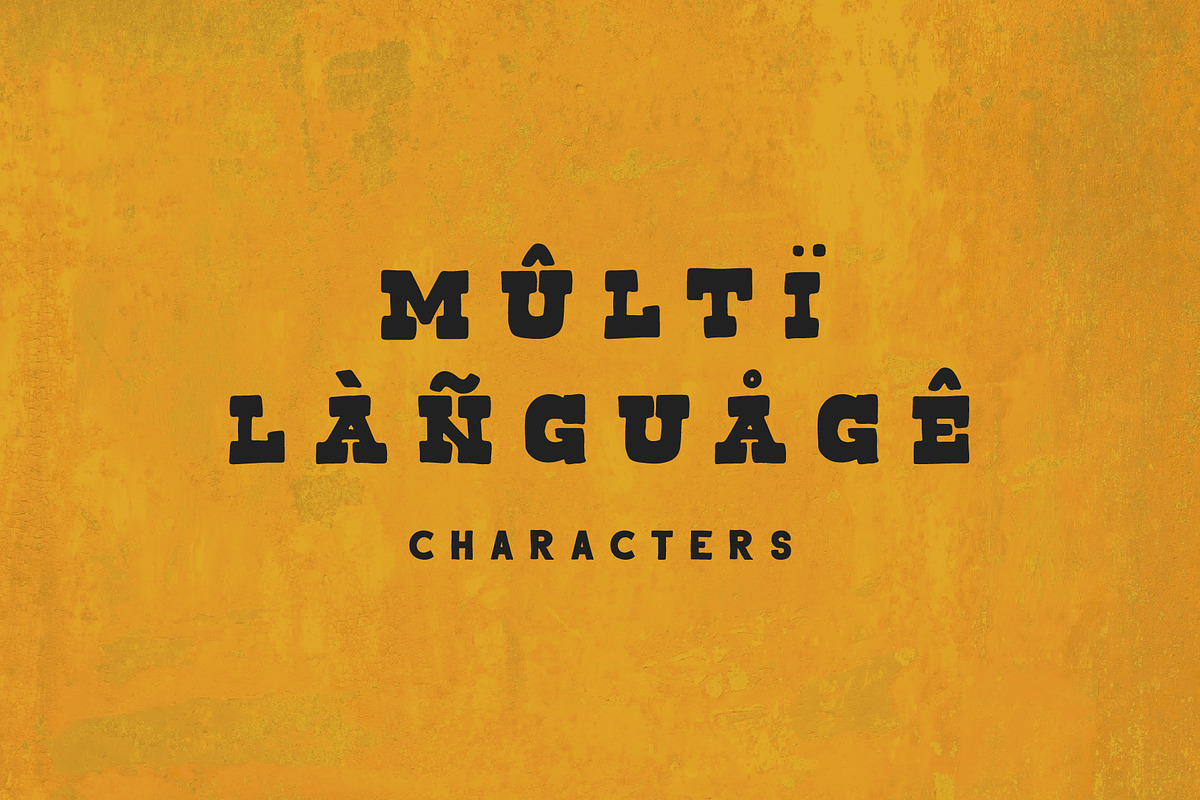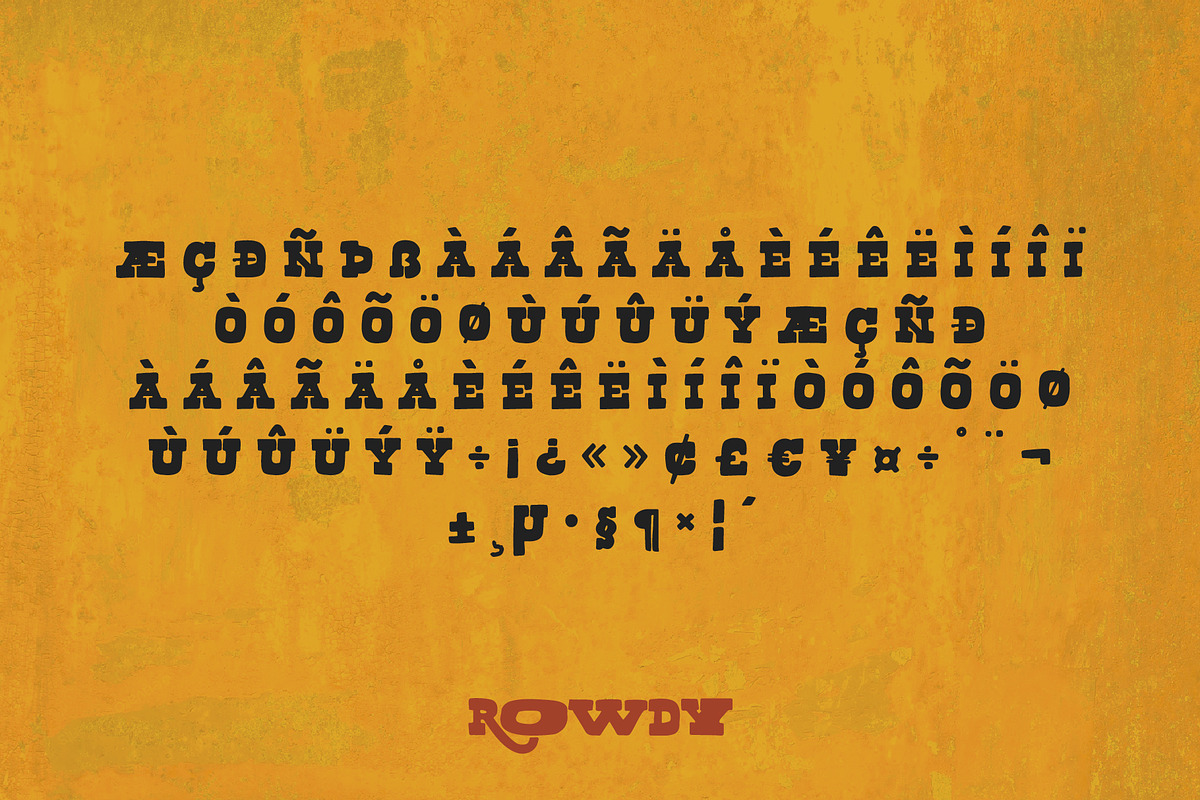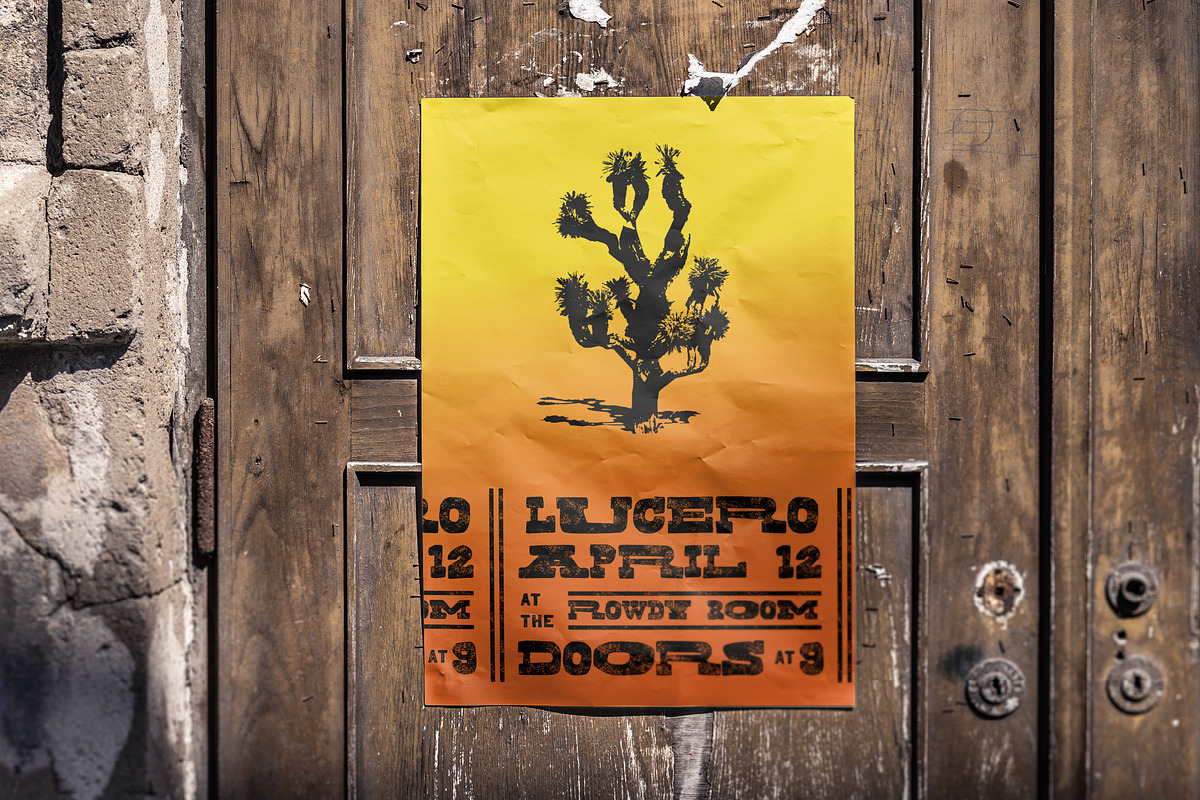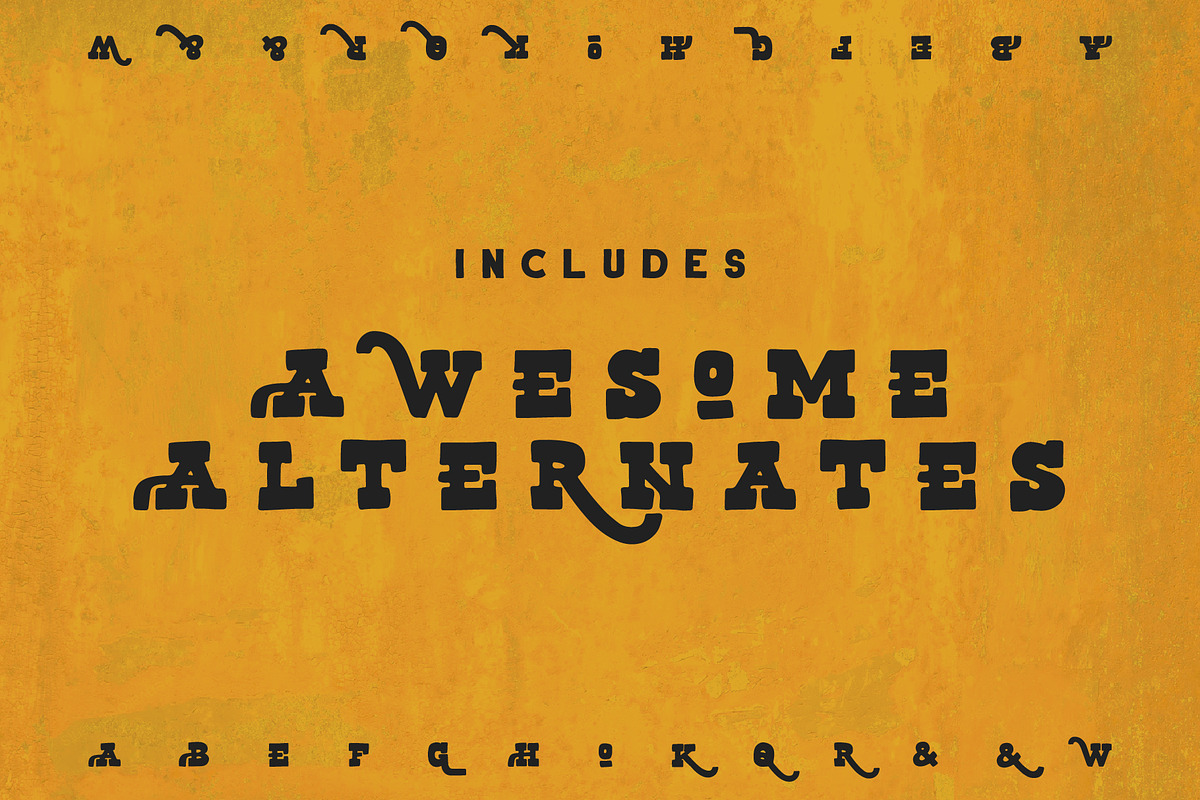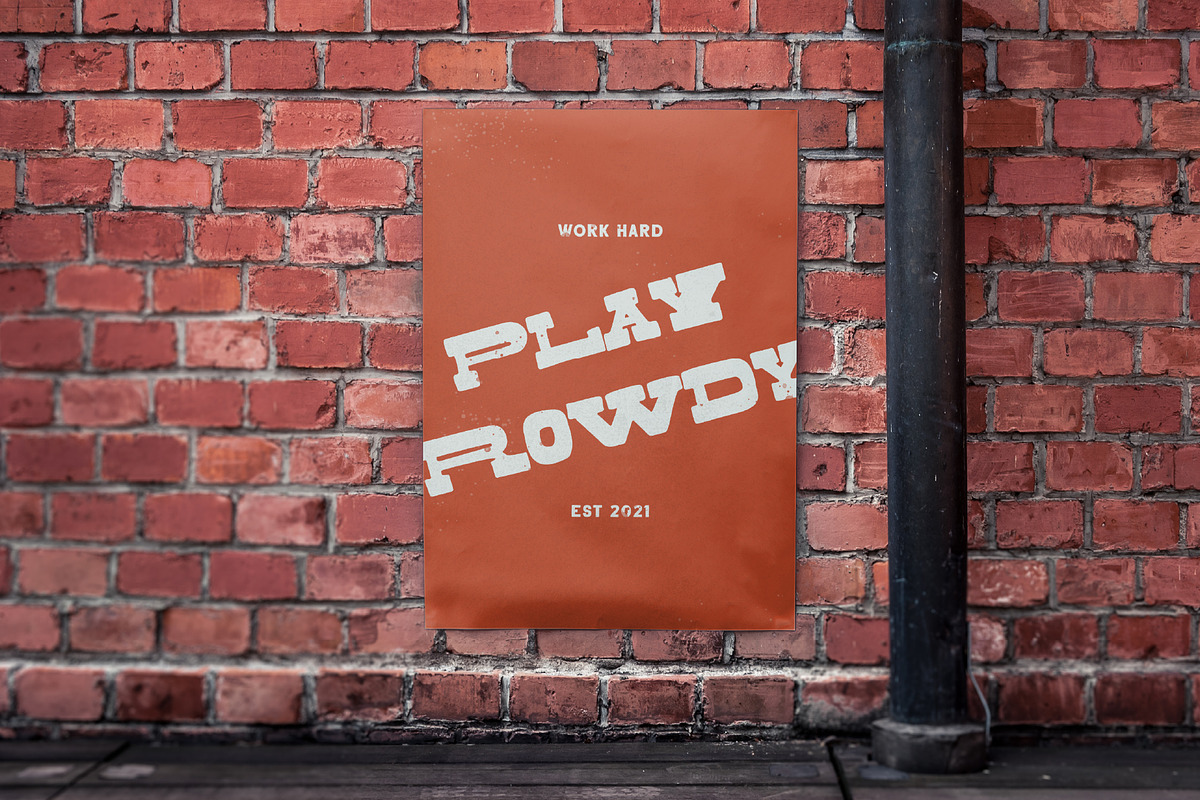
Rowdy
Rowdy is a dynamic and rugged vintage font inspired by western typefaces. It includes two widths of characters, paired together to create unique designs. The character set also includes fun alternatives to a number of glyphs that allow for even more exploration in your project!